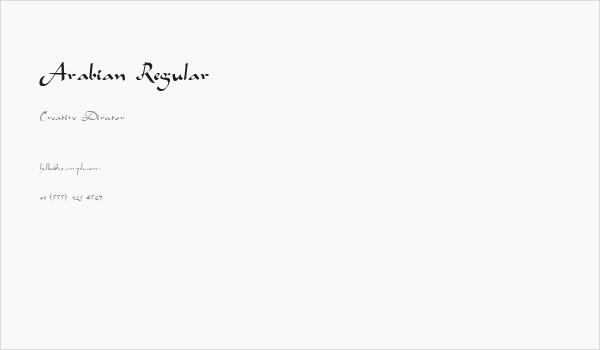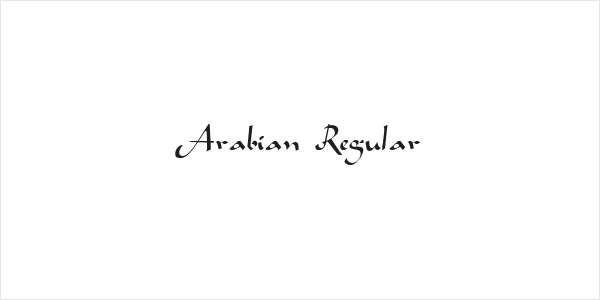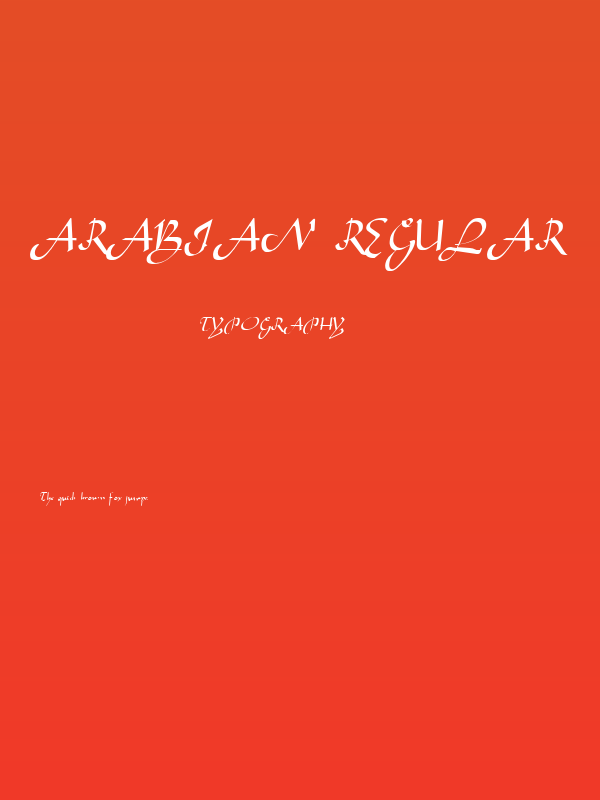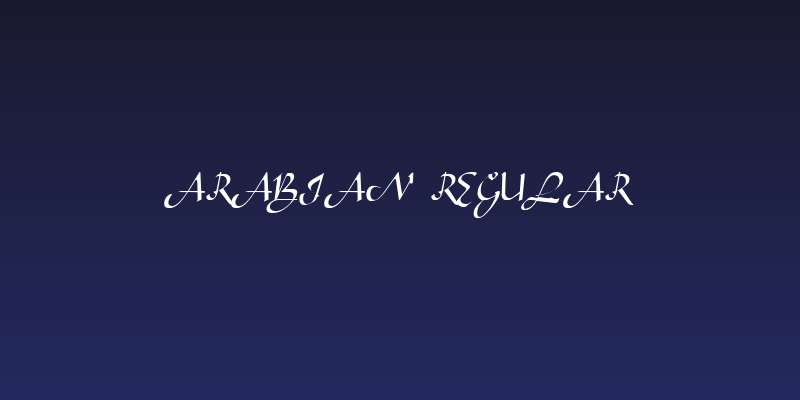
Arabian Regular Font
Arabian Regular Description
This font features an elegant and flowing script style, reminiscent of traditional calligraphy with a modern twist. The characters are gracefully elongated with a slight slant, giving them a dynamic and sophisticated appearance. The uppercase letters exhibit intricate swashes and flourishes, while the lowercase letters maintain a more restrained yet stylish form. The numerals are distinct and harmonize well with the overall aesthetic. Special characters are designed with unique flair, enhancing the font's decorative nature. This font is ideal for projects that require a touch of elegance and artistic expression.